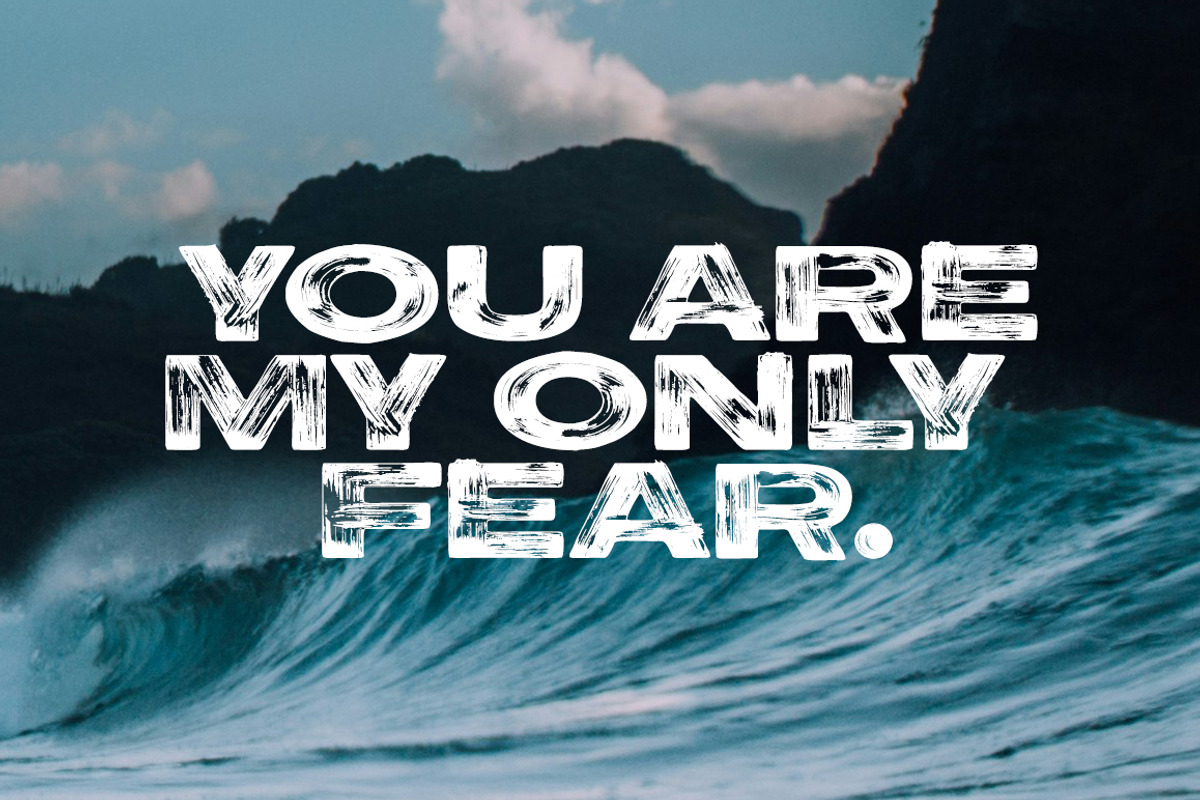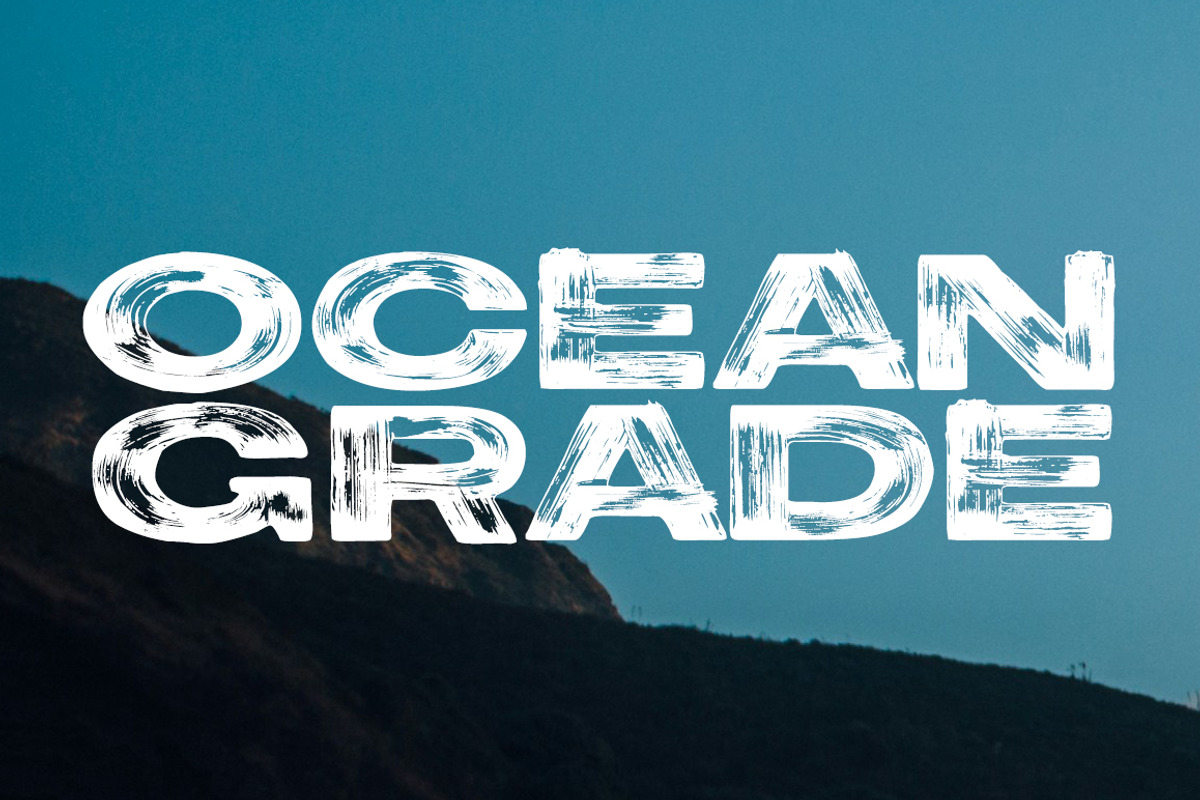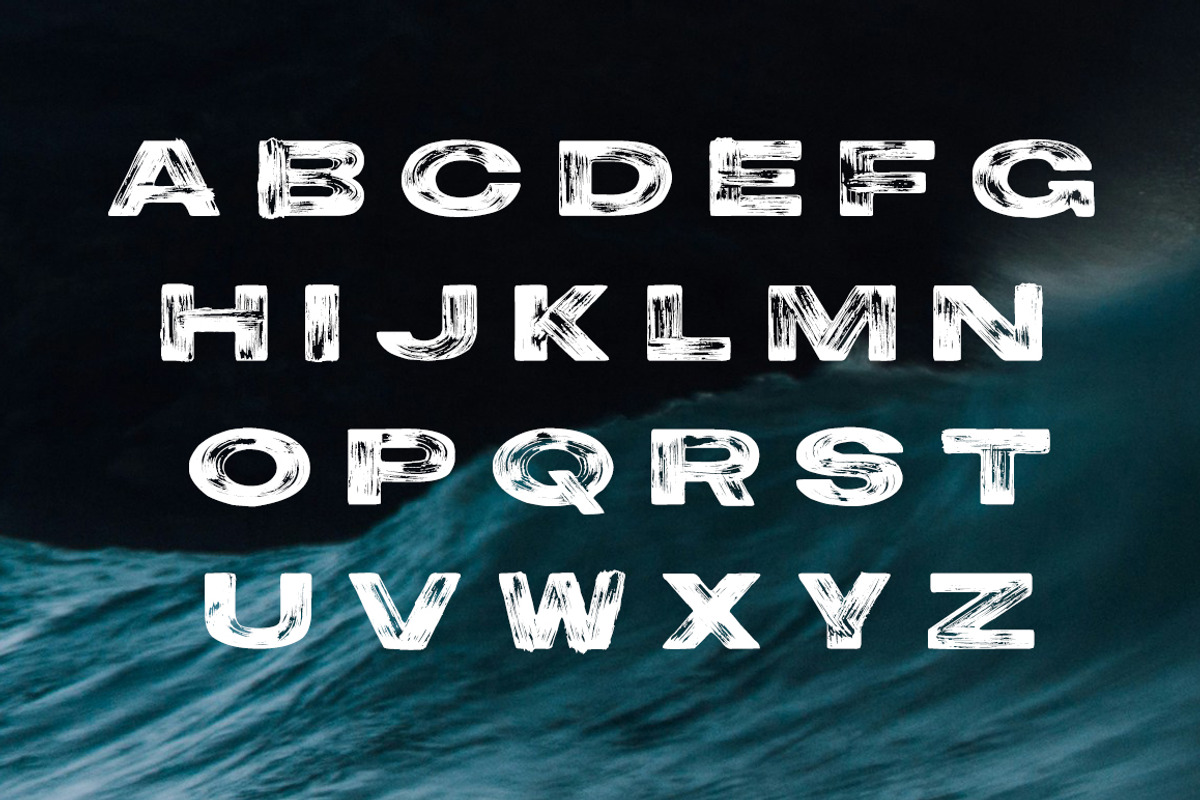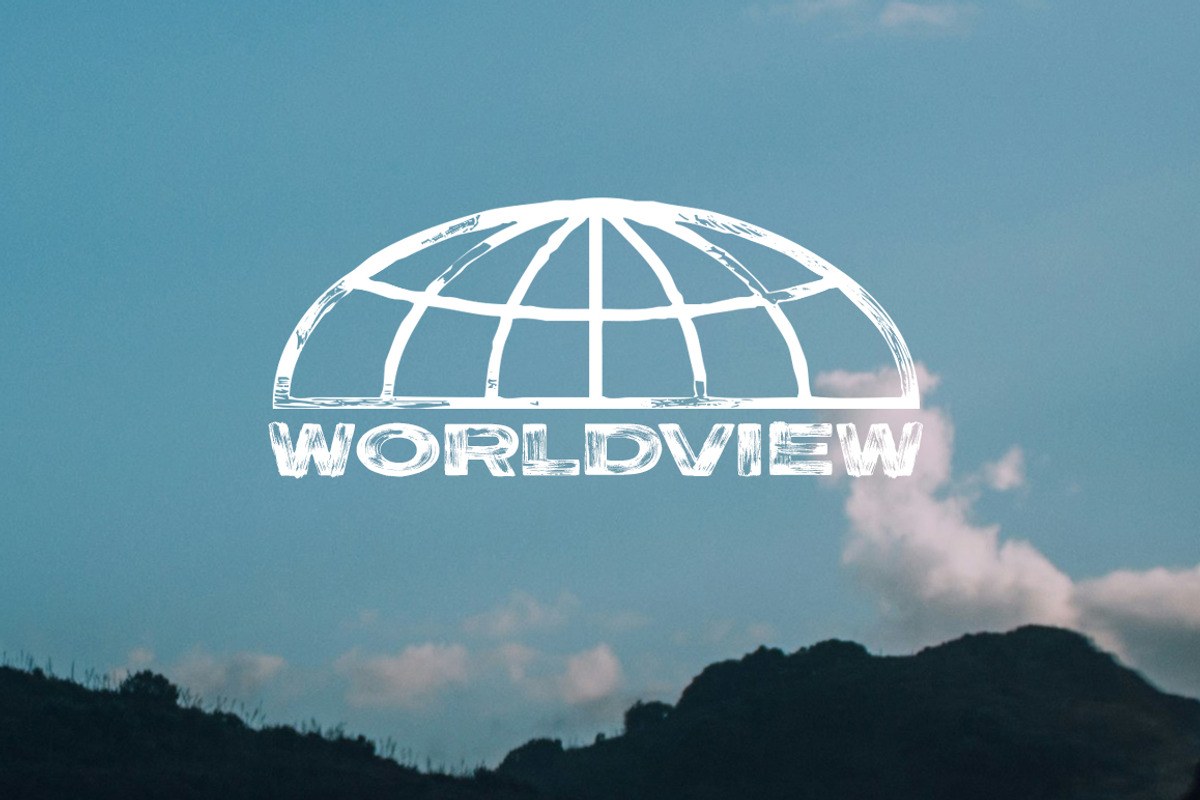
Ocean Grade Font
Ocean Grade is a trendy and straightforward font that bears its own acrylic texture. It goes well with your macro photographs and aesthetic posters. Layer it onto your projects and see how Ocean Grade takes your designs to the next level.
Features: Basic Alphabet | Numerals | Punctuations